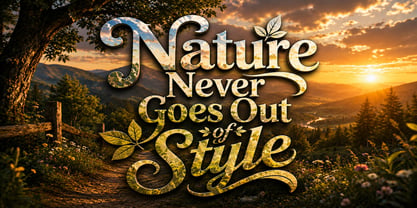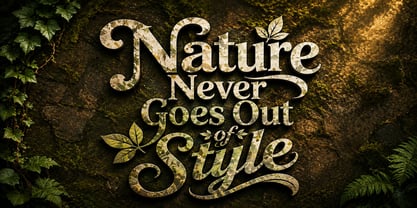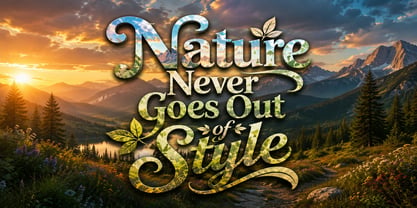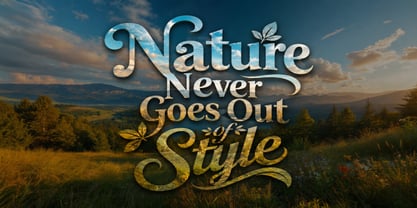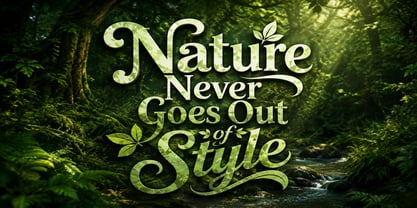
Nature Never Goes Out Of Style
by Muhammad Azhar Khatri
The Nature Never Goes Out Of Style Font Family was designed by Muhammad Azhar Khatri and published by Muhammad Azhar Khatri. Nature Never Goes Out Of Style contains 1 styles. More about this family
Celebrate the timeless beauty of nature with this premium typography bundle featuring elegant lettering, decorative flourishes, and beautifully crafted quote designs. Each artwork is carefully designed with a balance of classic typography and modern style, making it suitable for a wide variety of creative and commercial projects.
Features:
• Premium nature-inspired typography designs
• Clean, stylish, and professionally crafted compositions